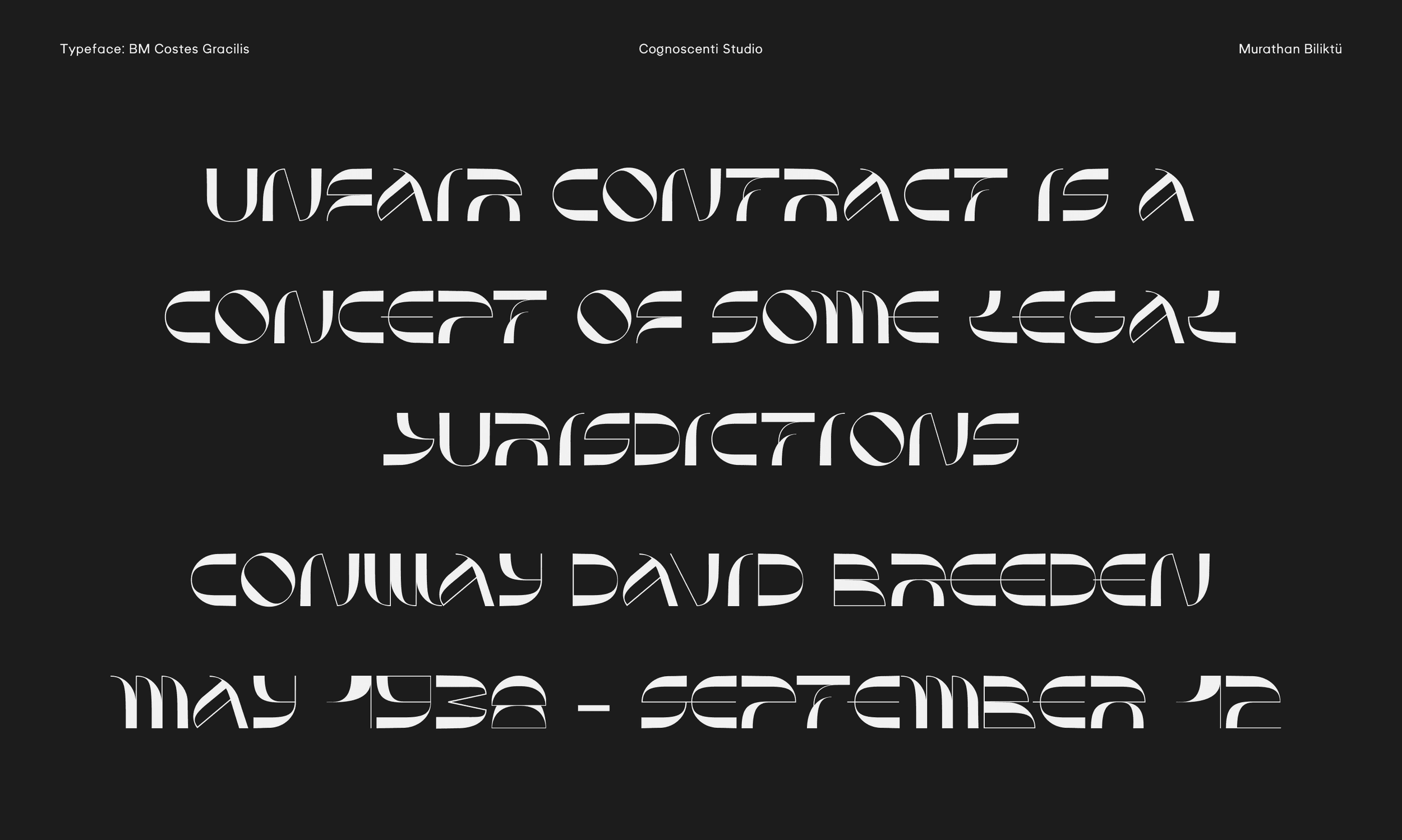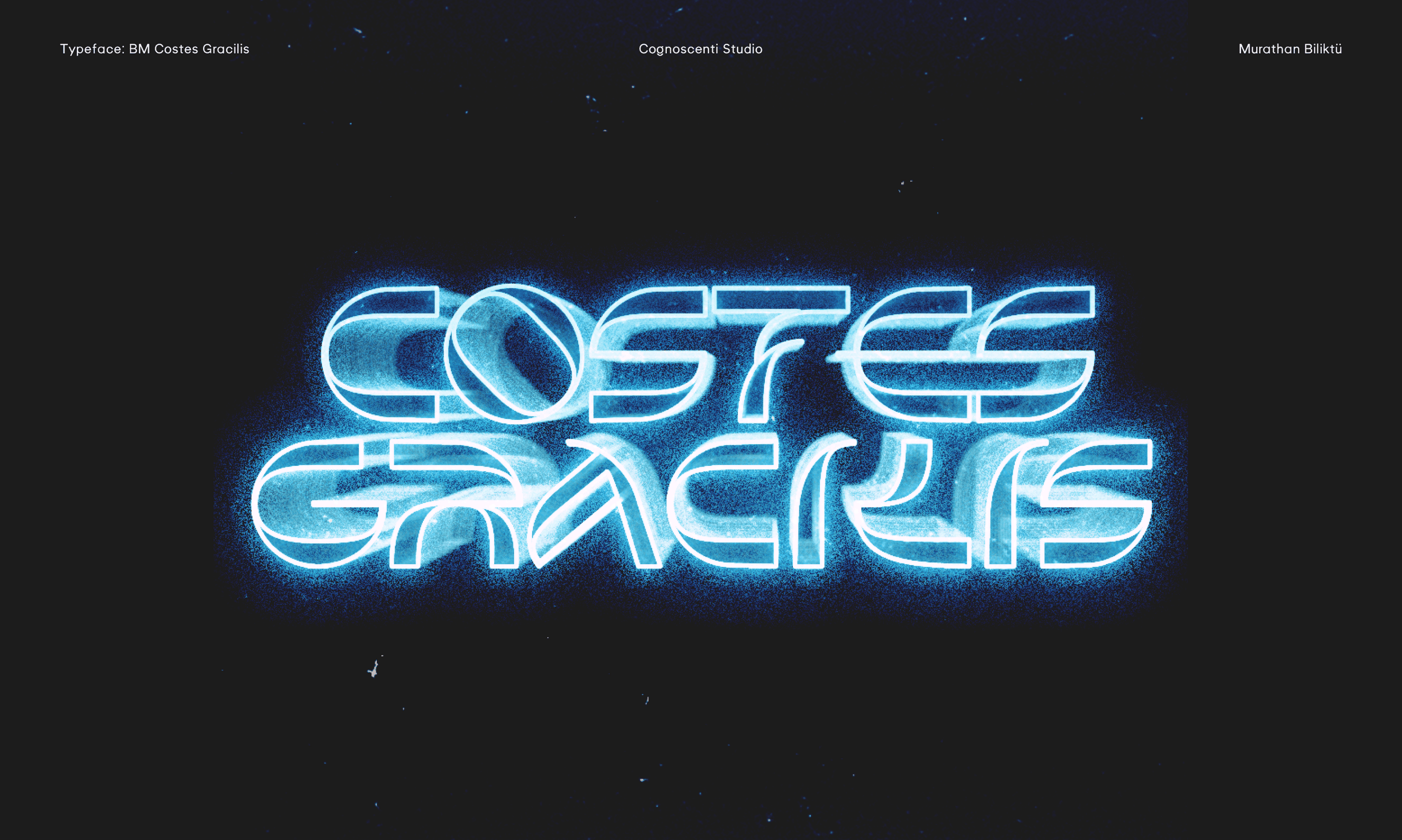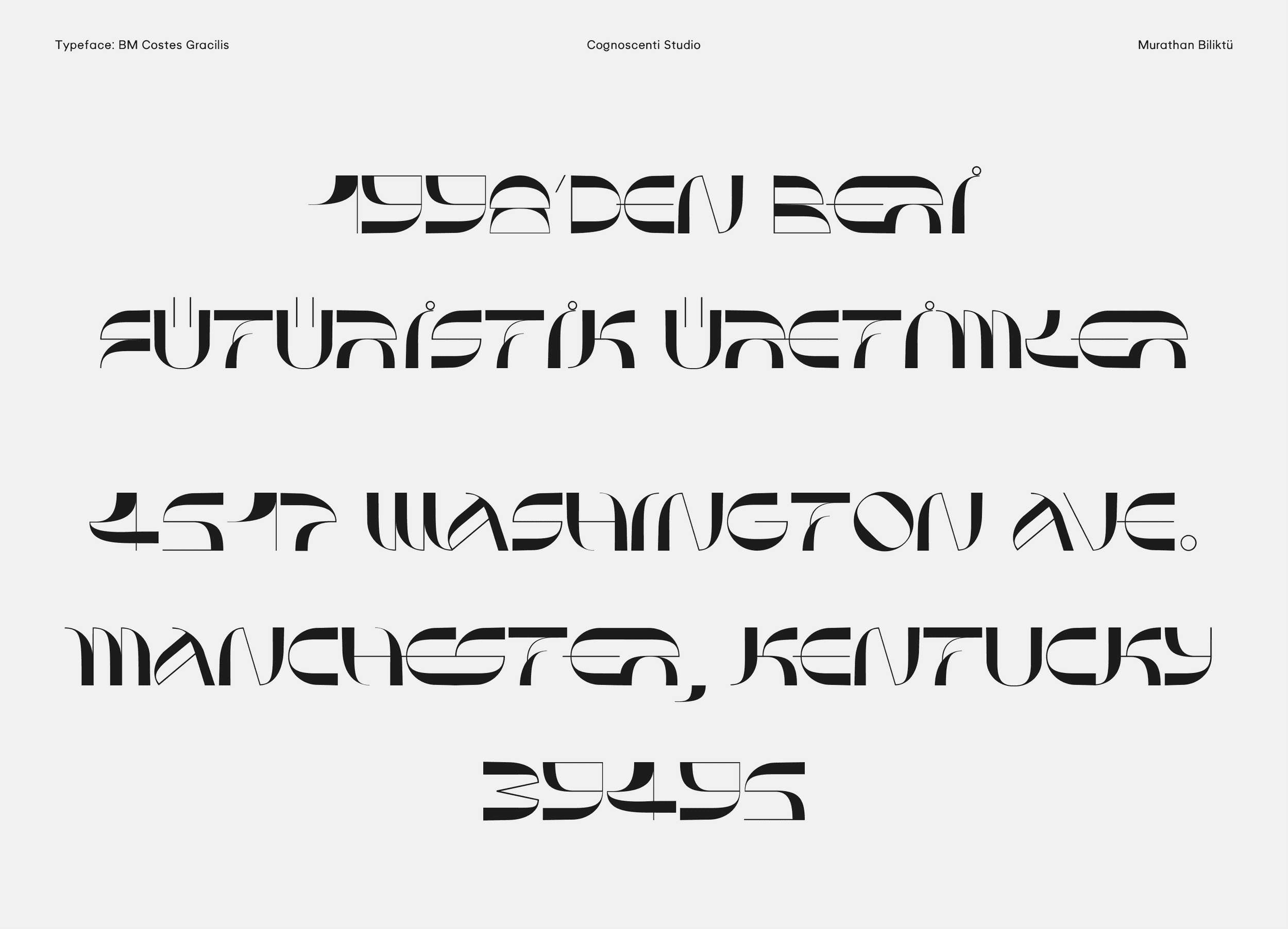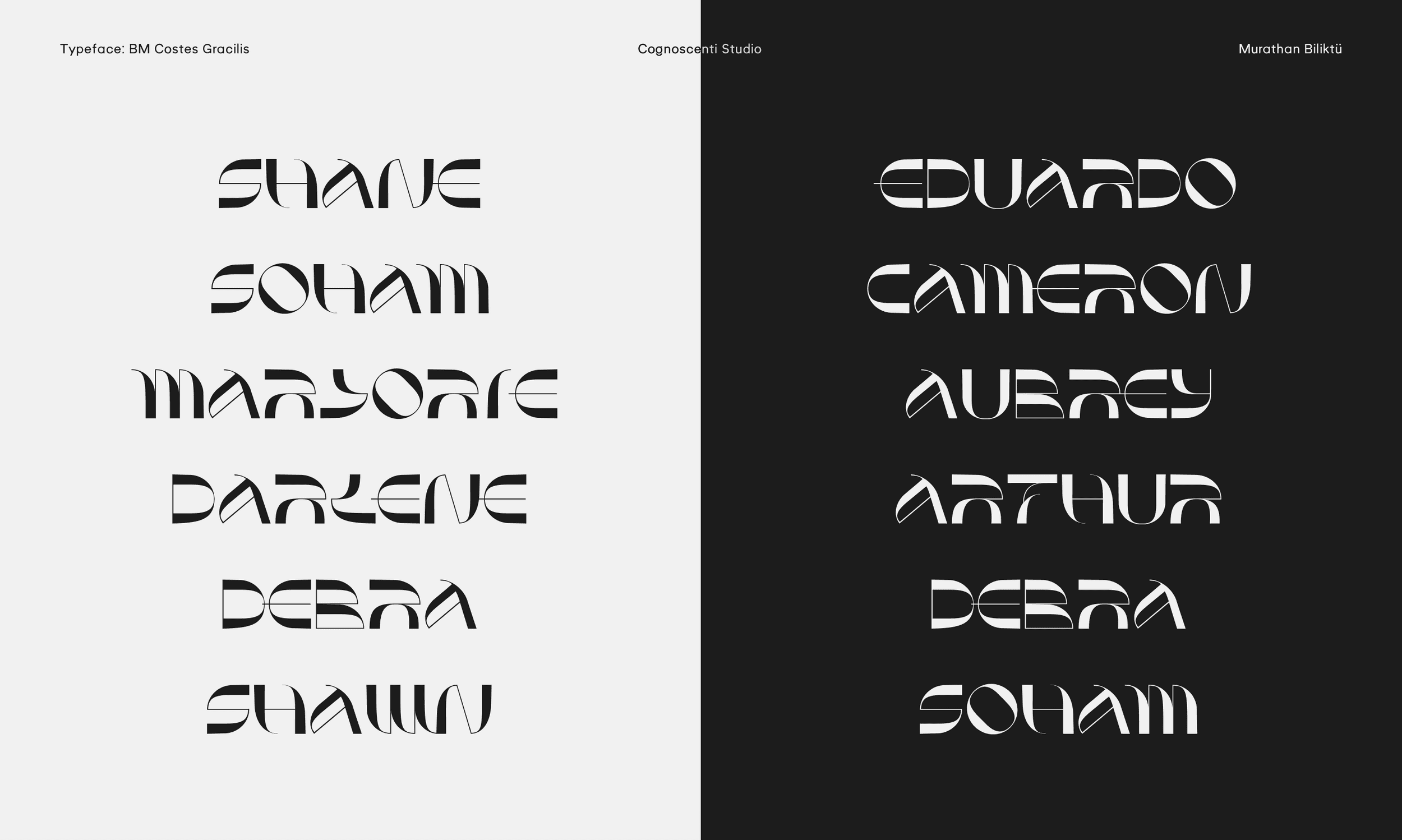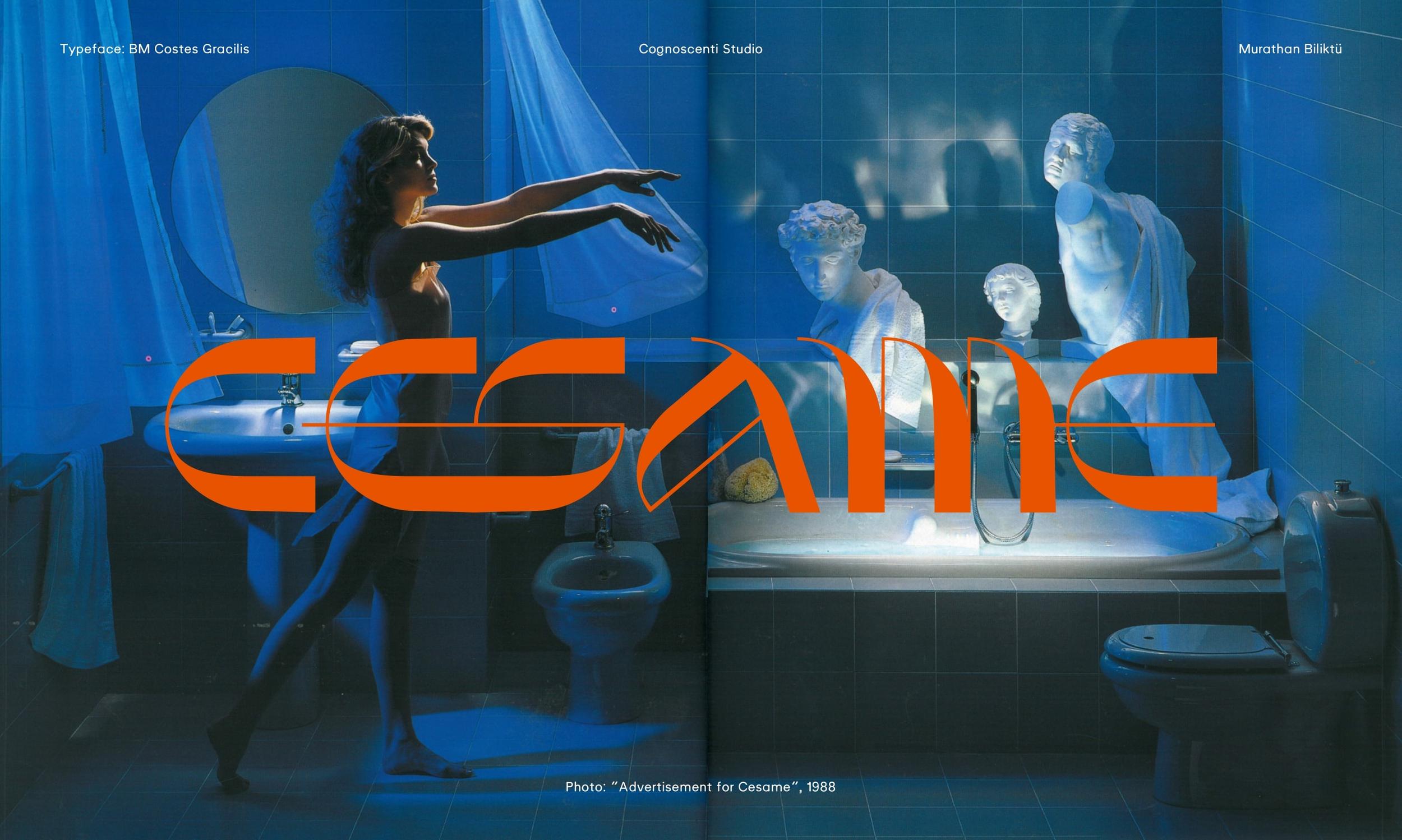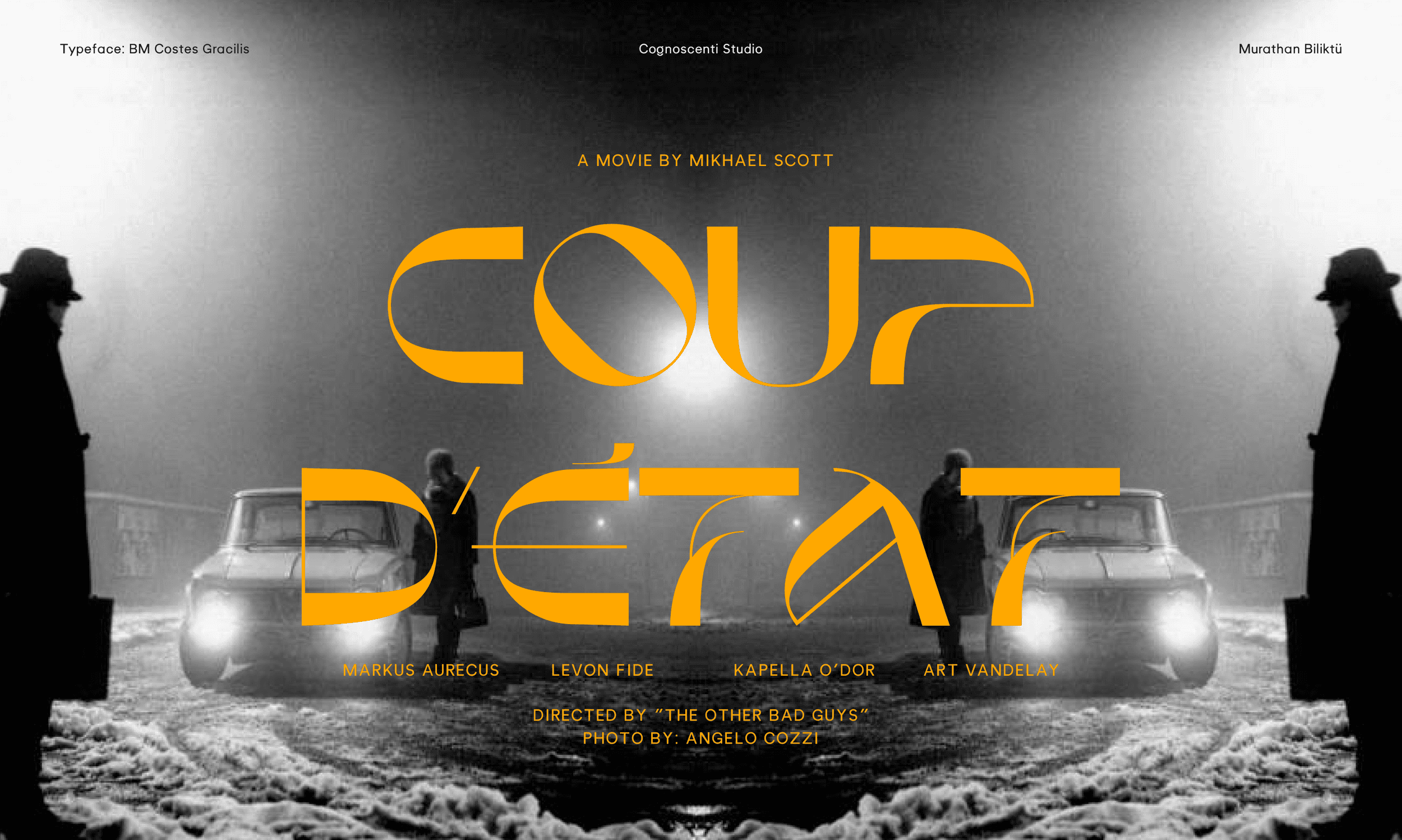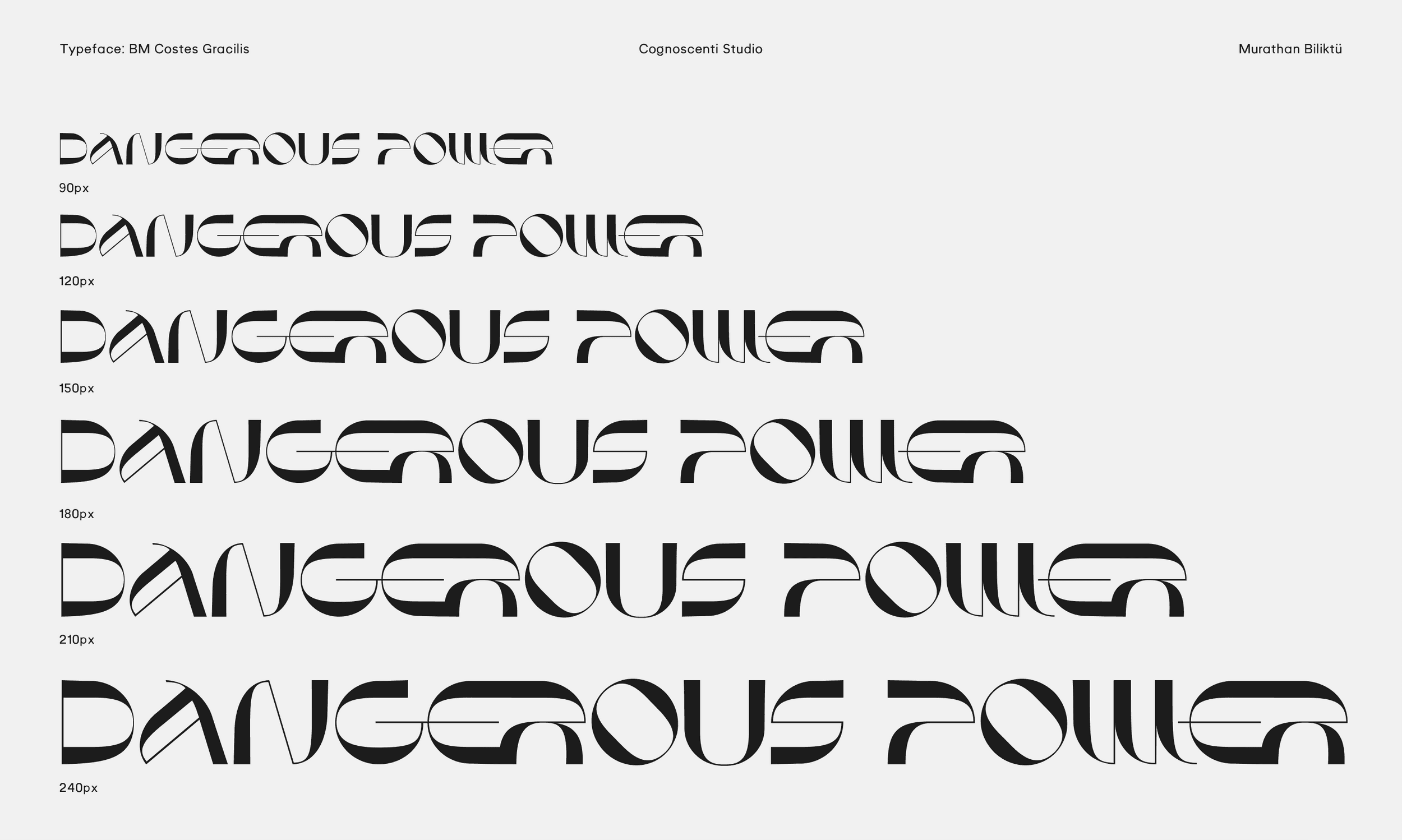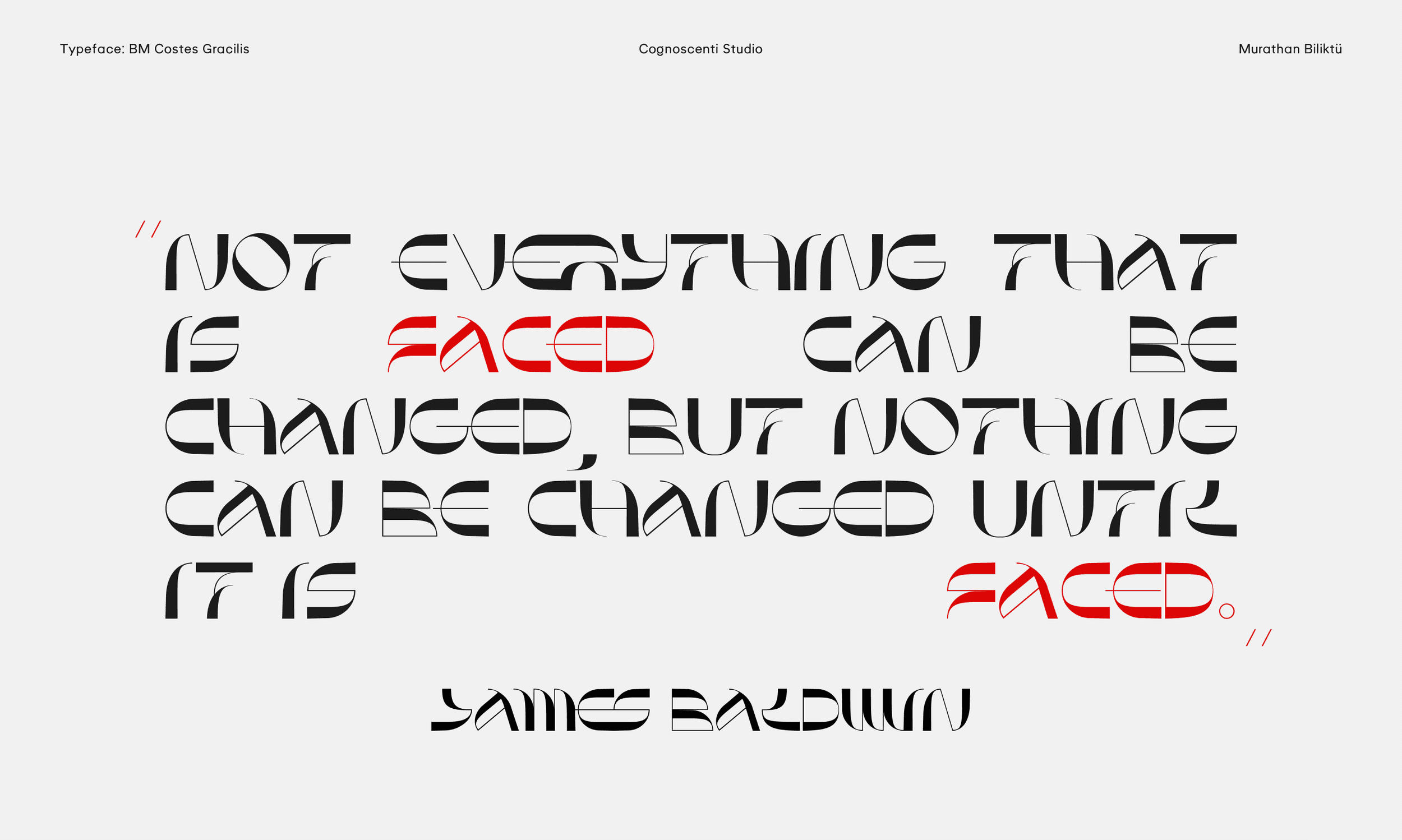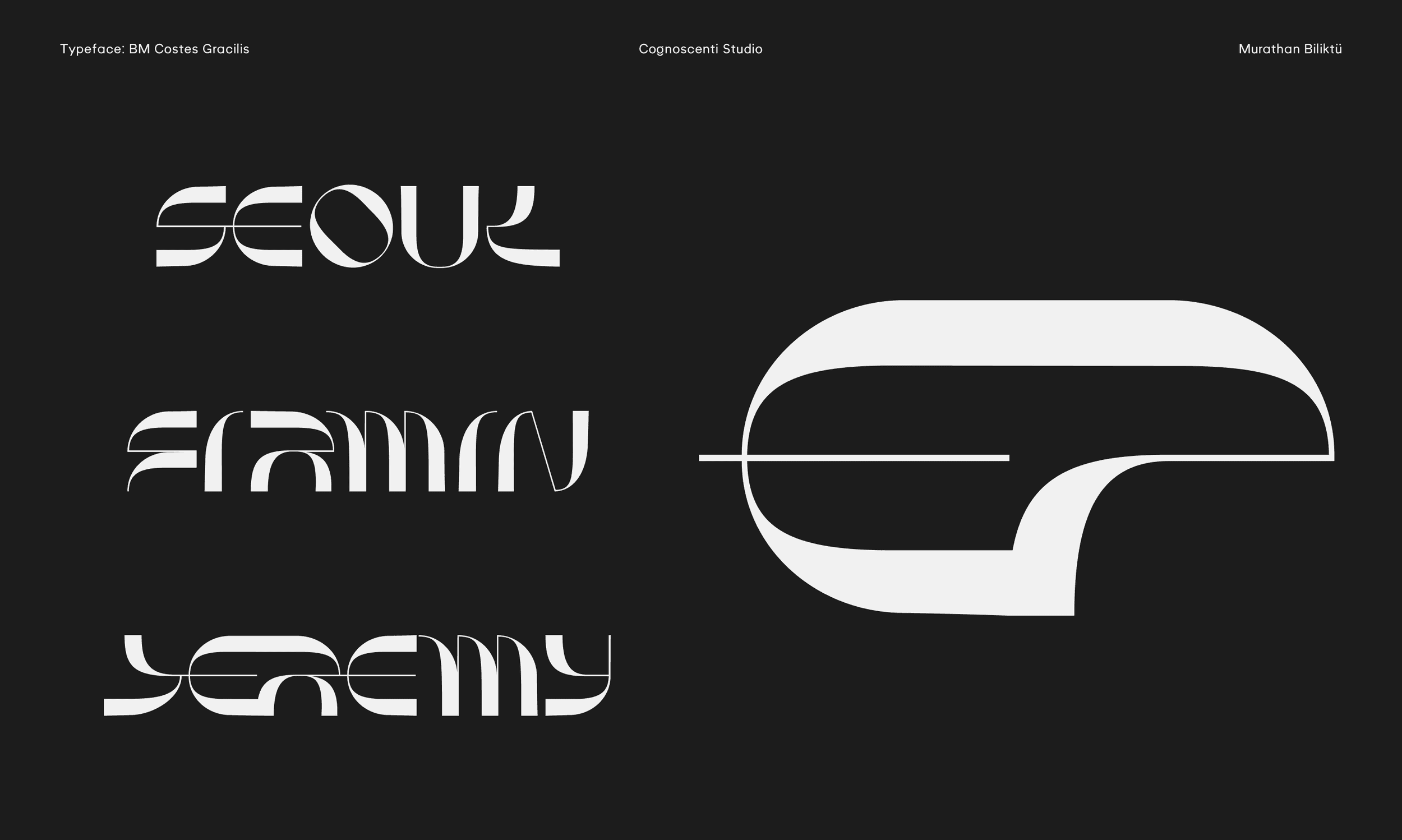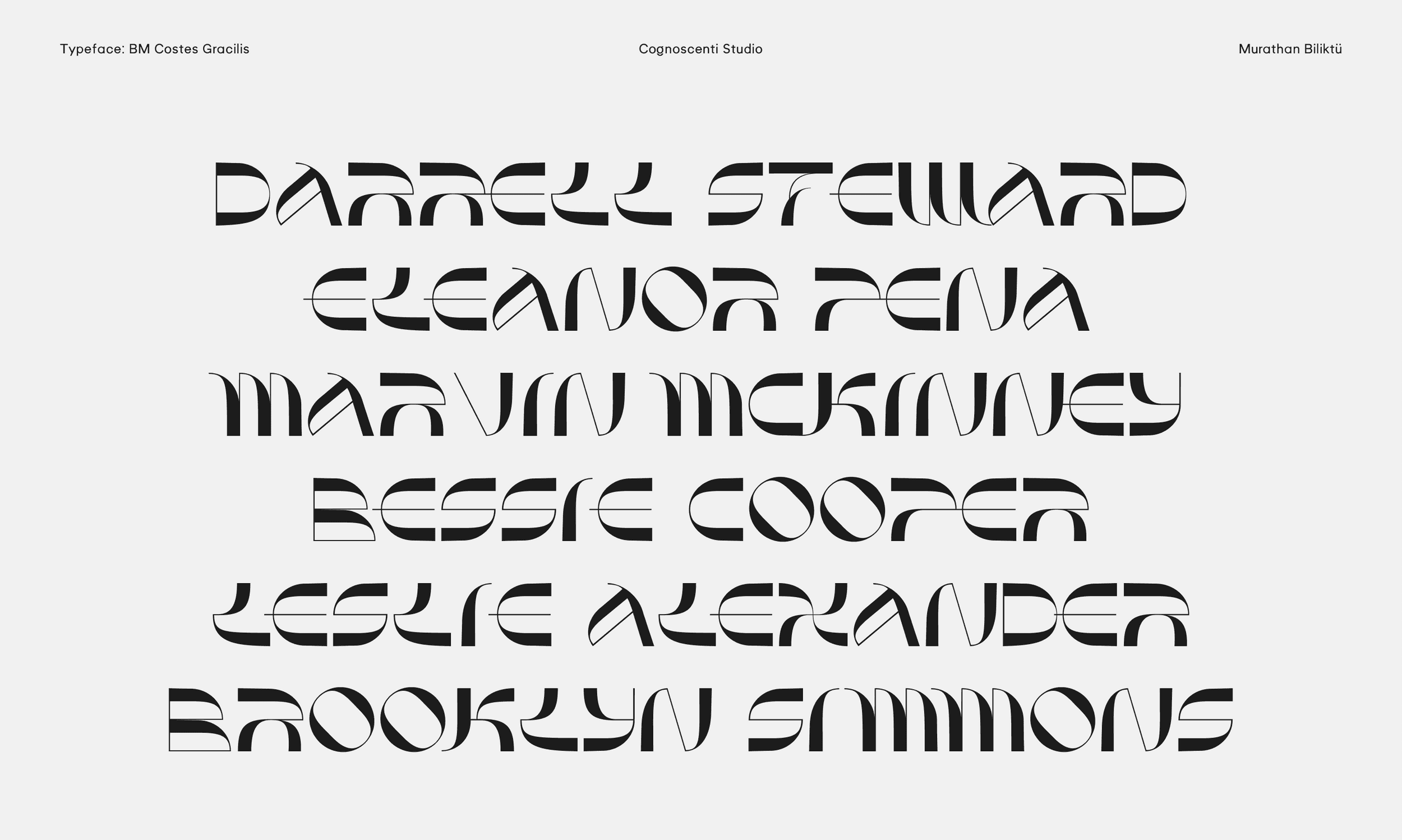
BM Costes
Regular/Gracilis
The last summer wind and the last sunset on the Mediterranean shore inspired this piece. Gracilis is a follow-up to Costes, my first typeface. I wanted to develop a version that was more slim and contrast-heavy. To me, type design is a therapeutic endeavour, and I enjoy producing errors. In a way, I like how nothing is flawless. But I'm getting better... Break the rules, then learn how to break them even more effectively.